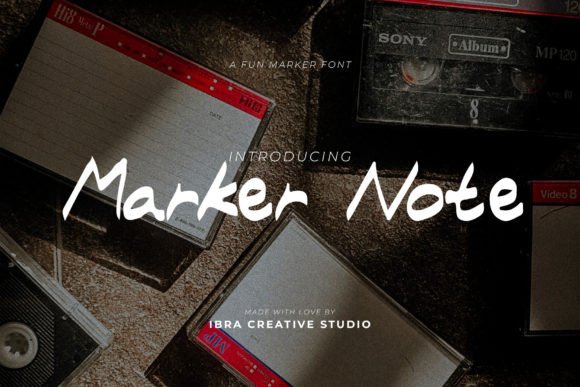
Journey into the world of expressive typography with Marker Note, the playful and vibrant script font that sparks creativity and adds a dash of delight to your designs. Inspired by the carefree strokes of a marker pen, Marker Note dances across the page with its bold and slightly irregular letterforms, capturing the essence of handwritten notes with a touch of artistic flair.
Immerse yourself in a realm of endless possibilities as Marker Note transforms your designs into captivating masterpieces. From cheerful greeting cards that spread joy to eye-catching posters that demand attention, Marker Note effortlessly adds a lively and energetic vibe to every creation. Its playful personality shines through, making it the perfect font for social media graphics that sizzle with life and charm.
With Marker Note, you hold the key to unlocking a world of visual expression. Its versatility knows no bounds, adapting seamlessly to a myriad of design styles. Whether you're crafting whimsical invitations, vibrant logos, or trendy t-shirt designs, Marker Note stands ready to elevate your concepts and leave a lasting impression.
Let Marker Note ignite your imagination and transport your designs to new heights of creativity. Its bold strokes and lively energy create a sense of excitement and engagement, instantly capturing the attention of your audience. Embrace the joy of handwritten expression and watch as Marker Note transforms your designs into captivating works of art.